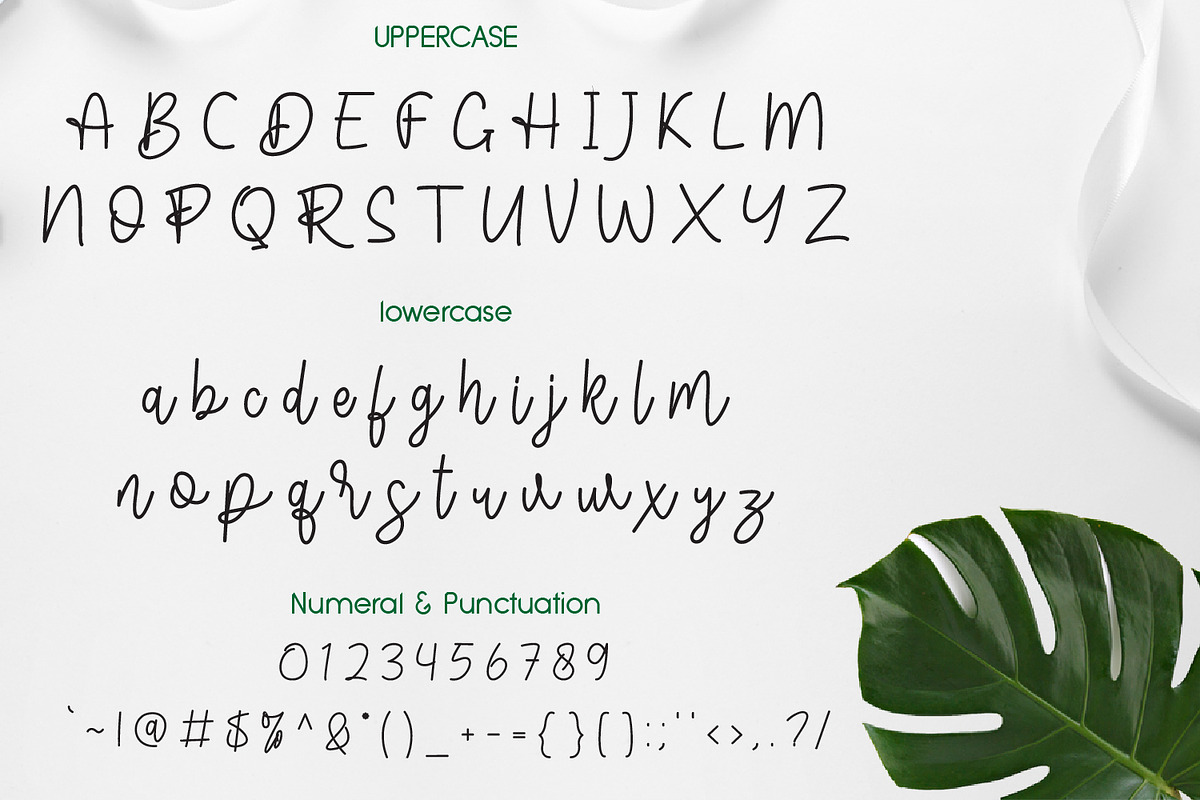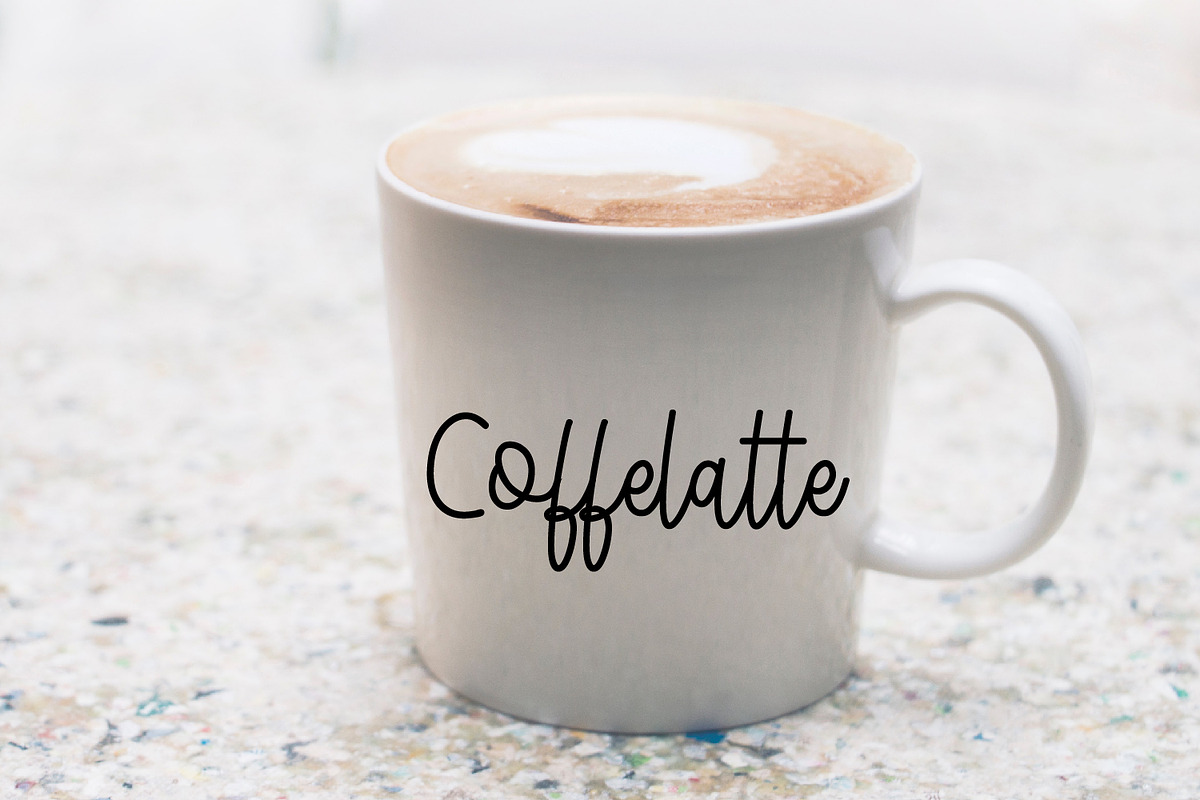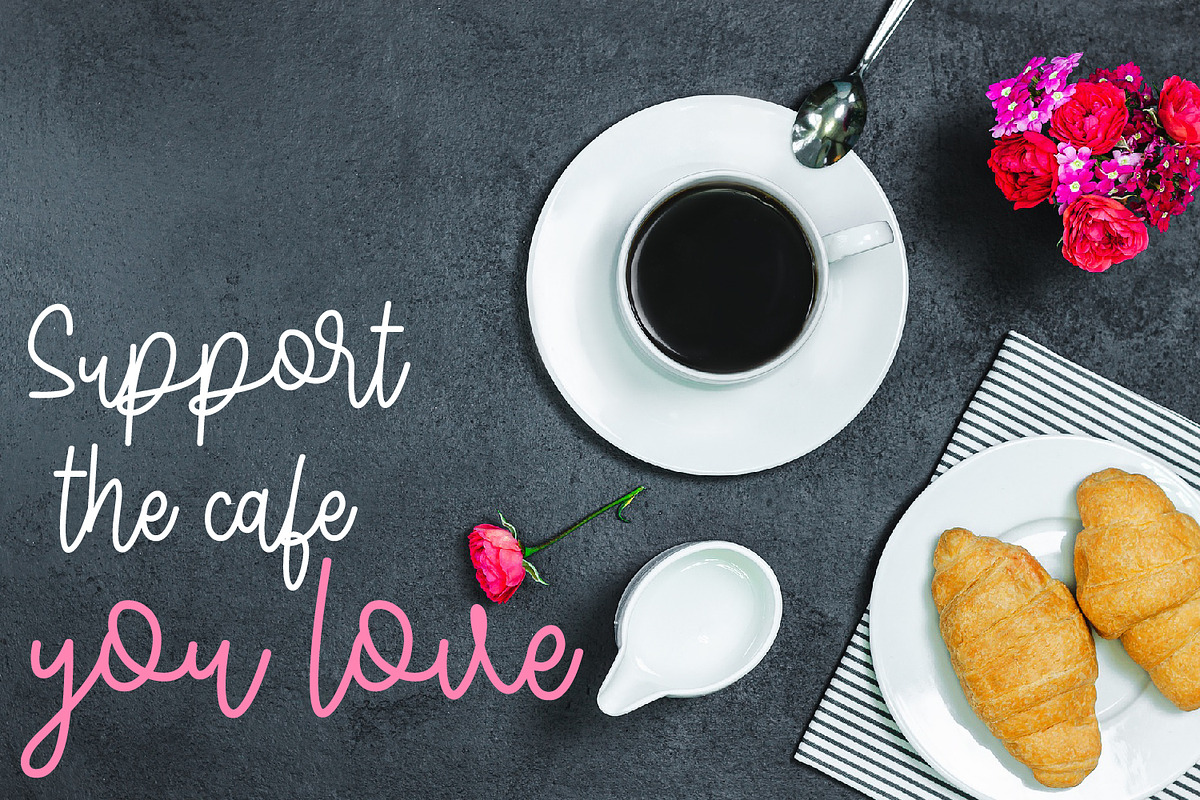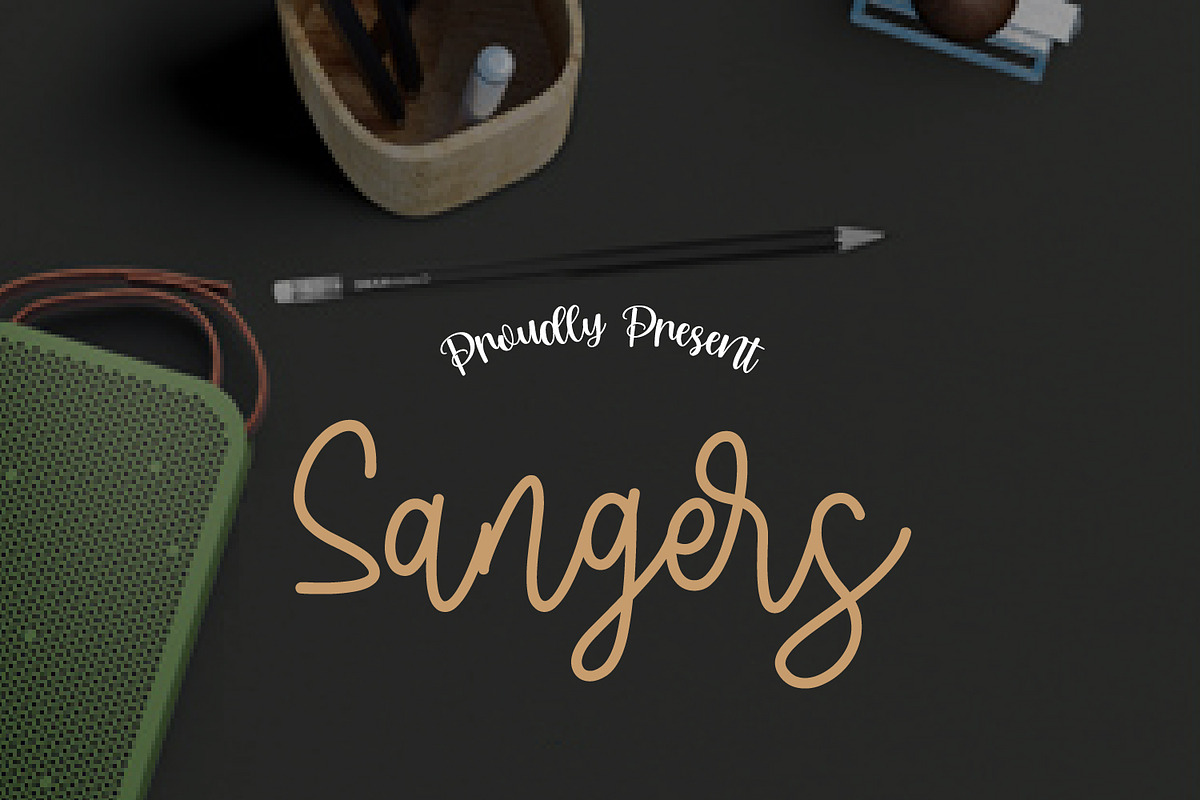
Sangers Signature
Sangers is handwritten modern stylish fonts, combines from classic to modern typeface with a elegant baseline. Can be used for various purposes, such as headings, signature, logos, wedding invitation, t-shirt, letterhead, signage, lable, news, posters, badges etc.